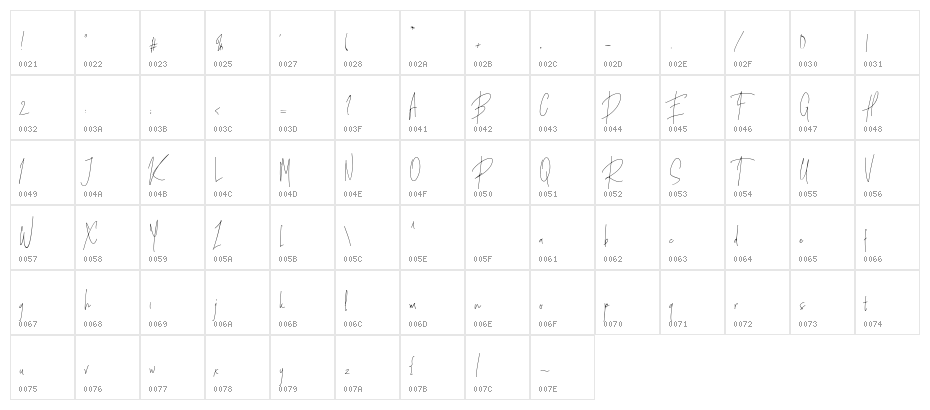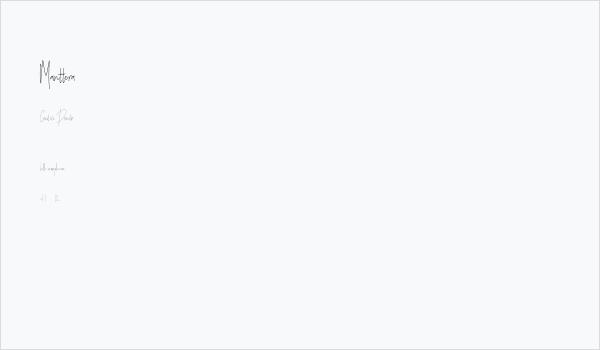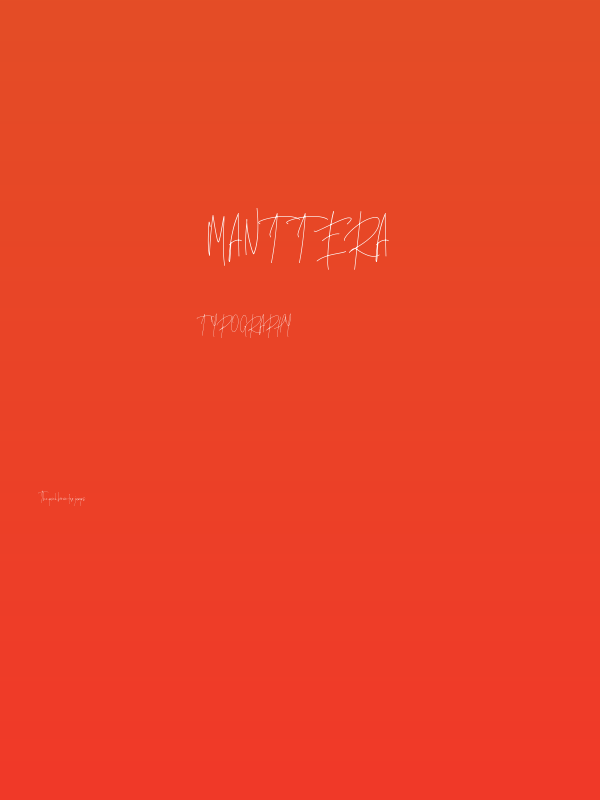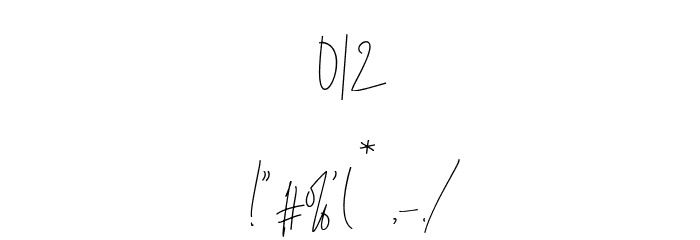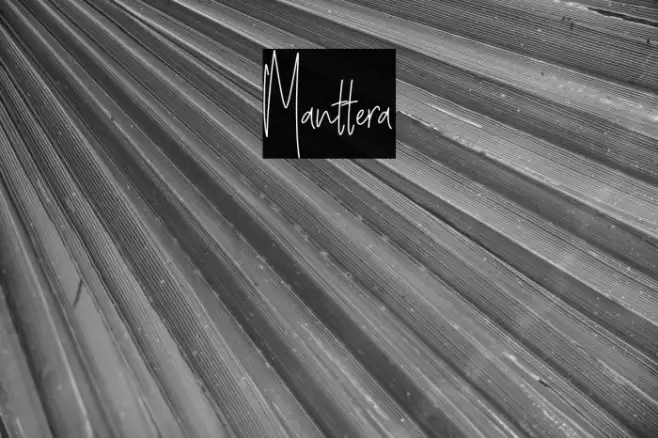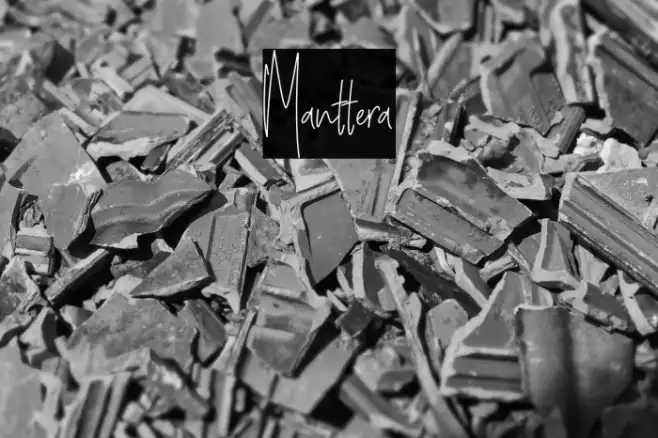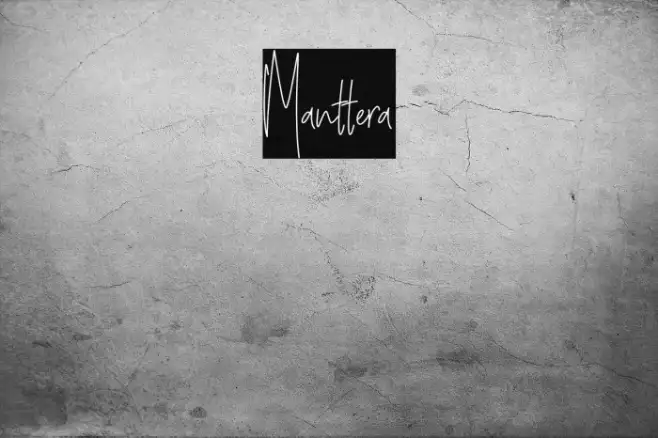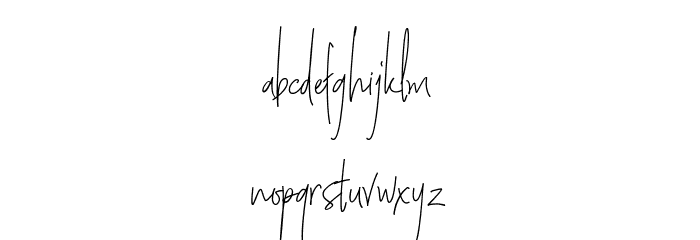
Manttera Font
Manttera Description
This font features a distinctive handwritten style with elongated, thin strokes that give it a casual yet elegant appearance. The uppercase letters are tall and narrow, while the lowercase letters maintain a consistent flow, enhancing the handwritten feel. The characters are slightly slanted, adding a dynamic and personal touch. The numbers and special characters follow the same style, ensuring uniformity across all elements. This font's unique character makes it suitable for projects that require a personal or artistic flair.
| Proposed Projects | Ideal for personal branding, artistic projects, invitations, and creative posters. |